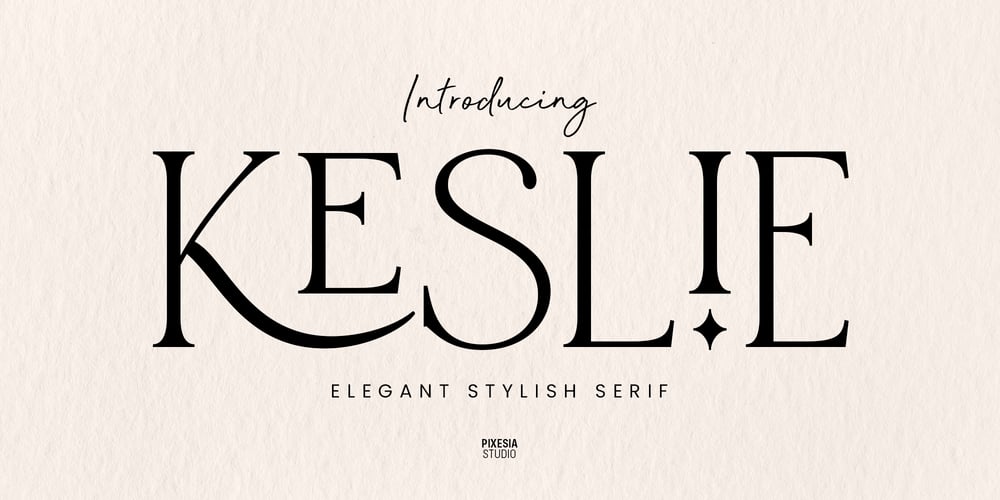
Keslie
Keslie font
Keslie Font Family was designed by Abul Almaududi and published by Pixesia Studio. Keslie contains 1 styles and family package options. Introducing Keslie – Elegant Stylish SerifKeslie is a modern and stylish serif font that effortlessly combines trendy aesthetics with elegant charm. With its eye-catching appeal and fancy, charming characteristics, Keslie is the perfect choice for captivating designs. Its clean letterforms exude sophistication, making it ideal for high-end branding and editorial layouts. Keslie’s unique character forms and balanced proportions ensure that your text stands out, adding a touch of modern elegance to any project. Unleash your creativity with Keslie and let its aesthetic, stylish, trendy, and elegant features elevate your designs to new heights.FEATURES- Stylistic Alternates- Ligatures- PUA Encoded- Uppercase and Lowercase letters- Numbering and Punctuations- Multilingual Support- Works on PC or Mac- Simple Installation- Support Adobe Illustrator, Adobe Photoshop, Adobe InDesign, also works on Microsoft WordHope you Like it.Thanks.